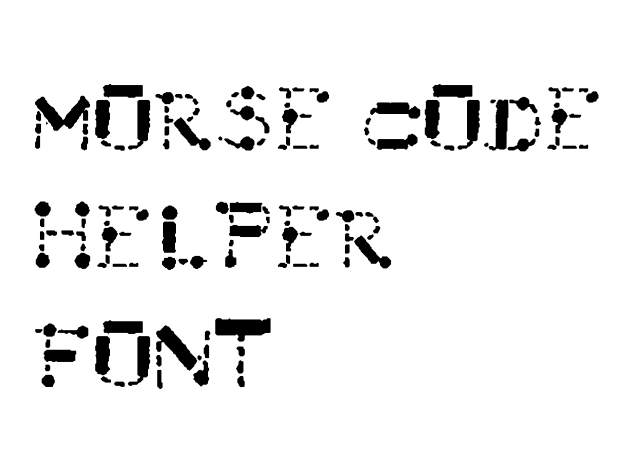
Morse Code Helper Font
A font version of the vectorization sourced from here: https://openclipart.org/detail/252718/lord-baden-powells-morse-code-mnemonic-cha... Which in turn was source from this book: Scouting founder’s Morse Code mnemonics from his 1918 Girl Guiding Handbook The license for this font is CC0 - Public Domain, it means, do anything you want with it, read the full license terms here: https://creativecommons.org/share-your-work/public-domain/cc0/